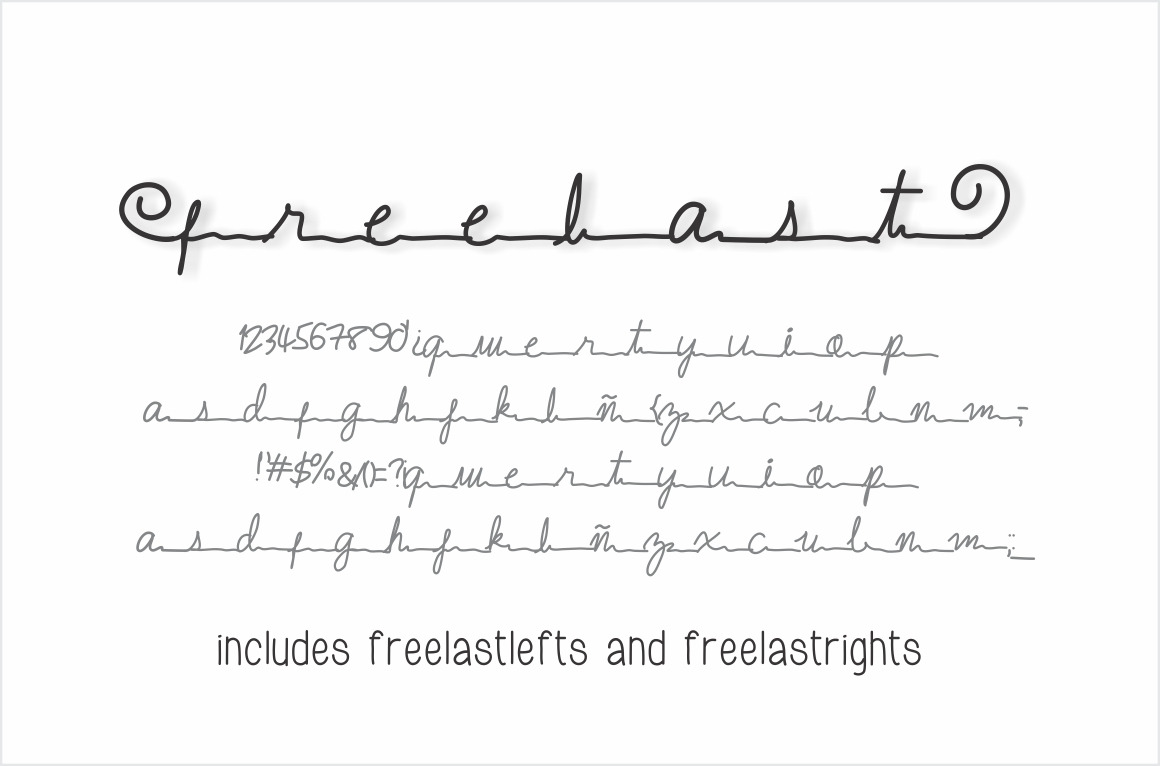
Freelast Font
Only small caps, a vintage font special designed to accent logos with slogans. Backgrounds vintage look too! Now includes Freelastlefts and Freelastrights!